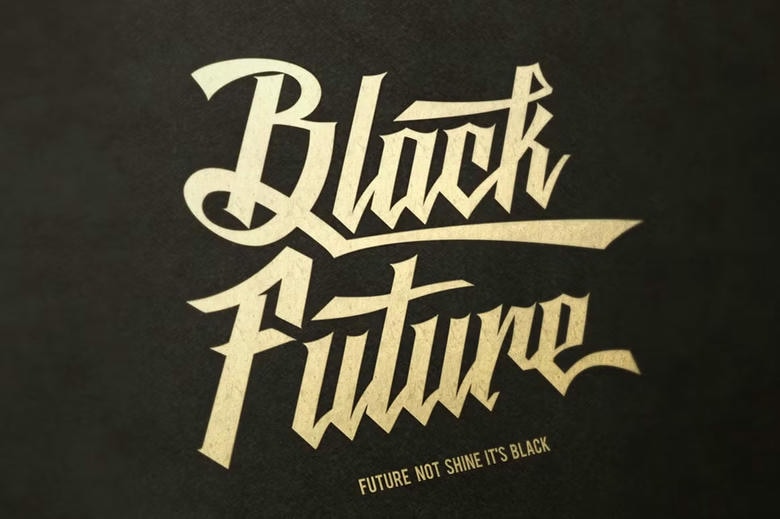
Black Future Font
Black Future is a new calligraphy script font that blends street art with blackletter style. Its sharp edges and bold, lively look help it stand out. You can use it for logos, t-shirts, letterheads, signs, labels, posters, badges, and more.
Black Future Blackletter Font